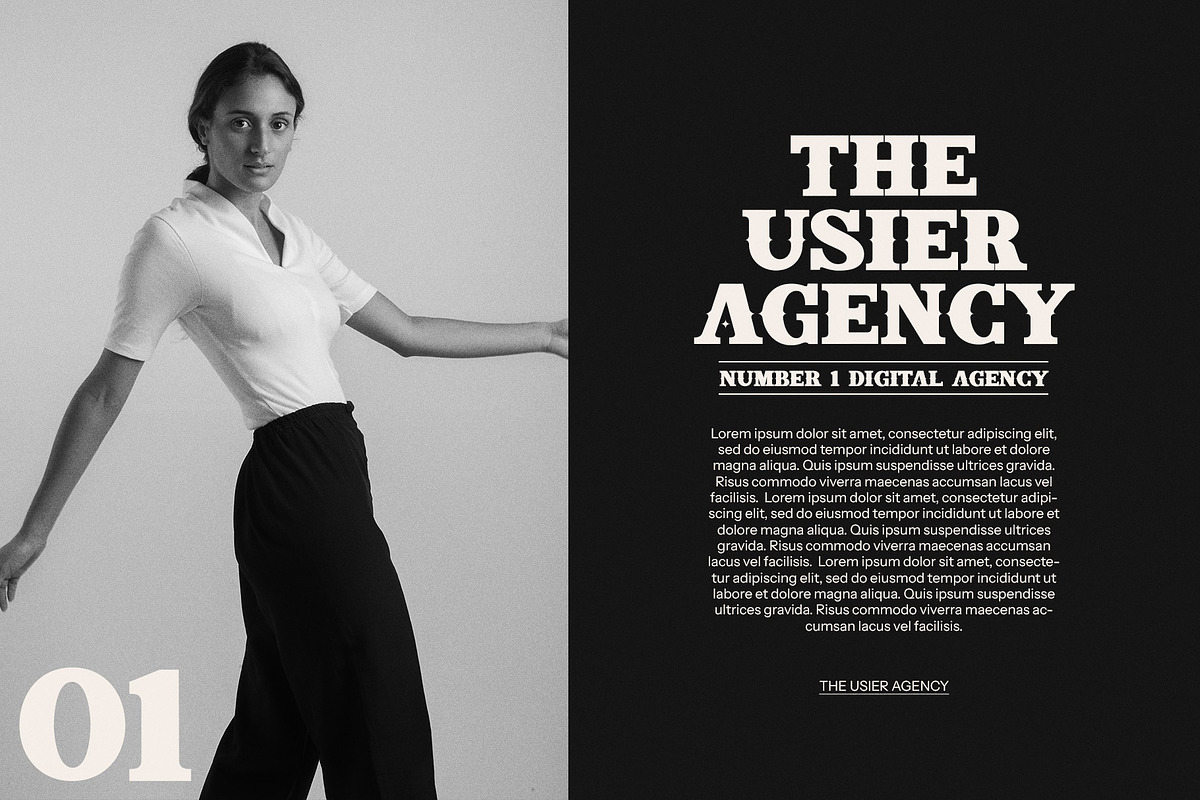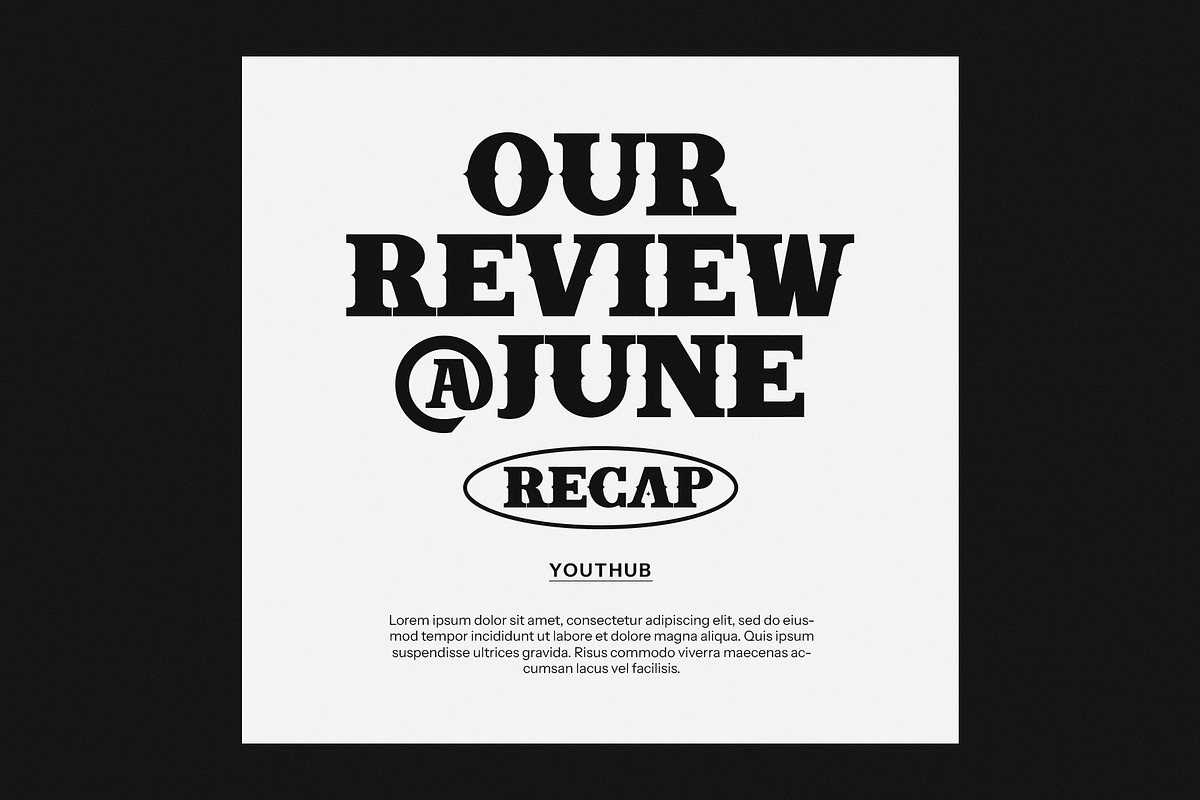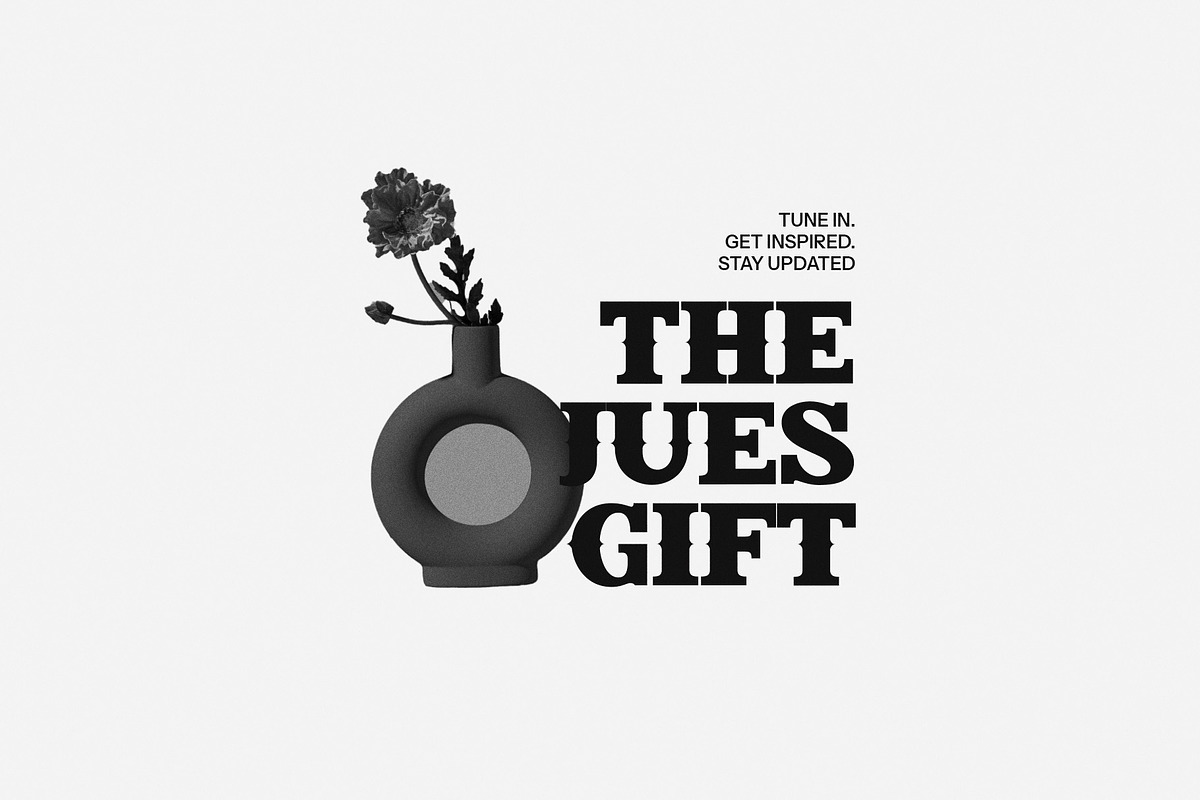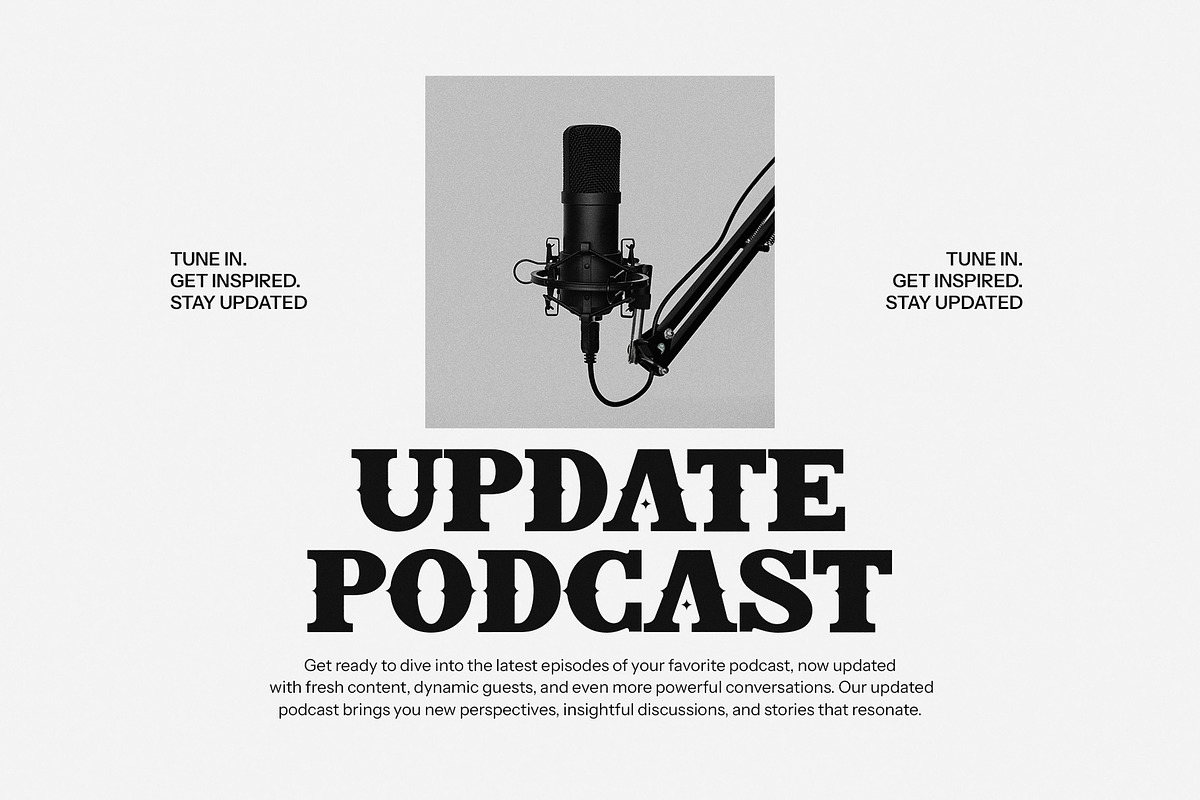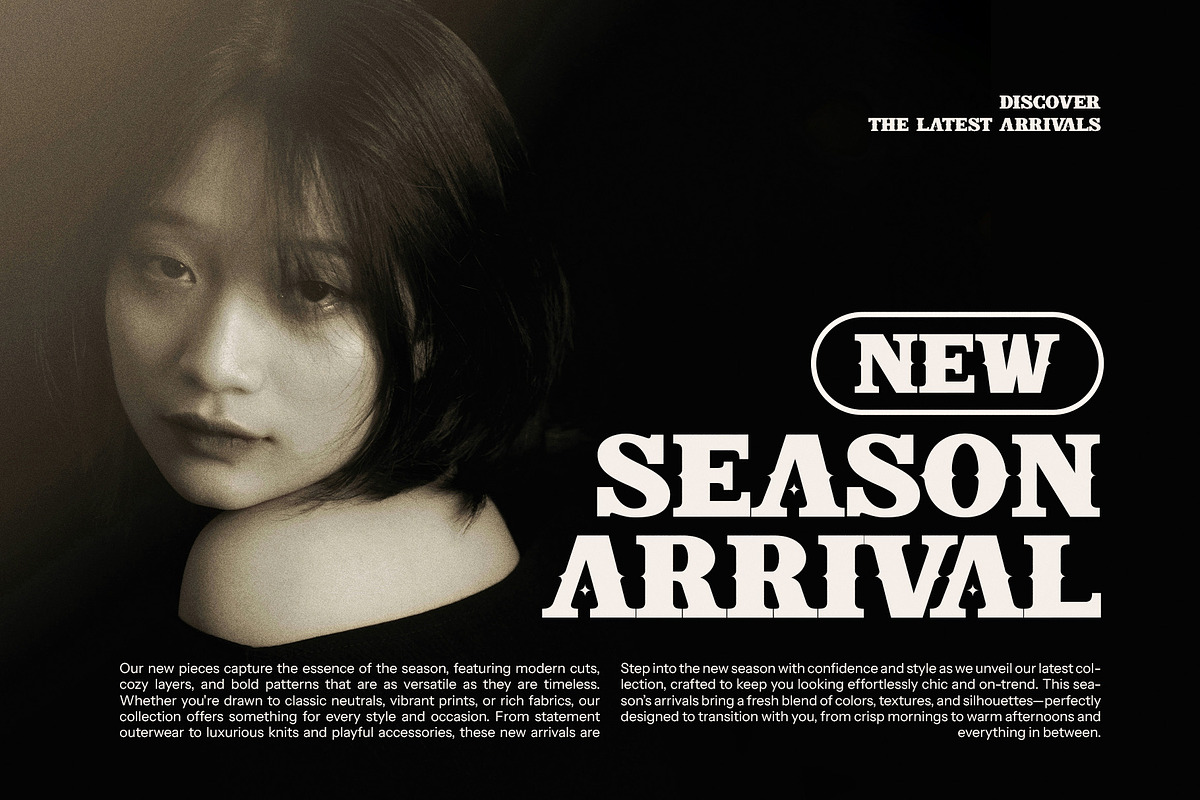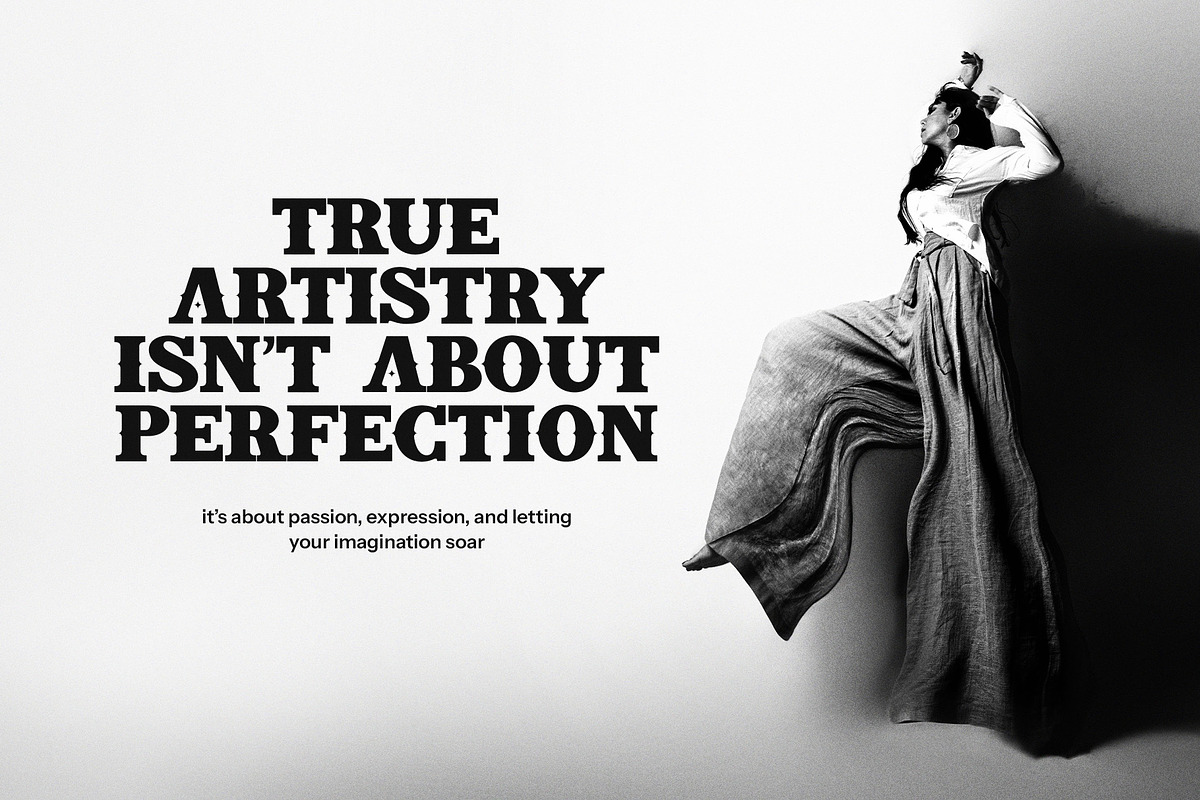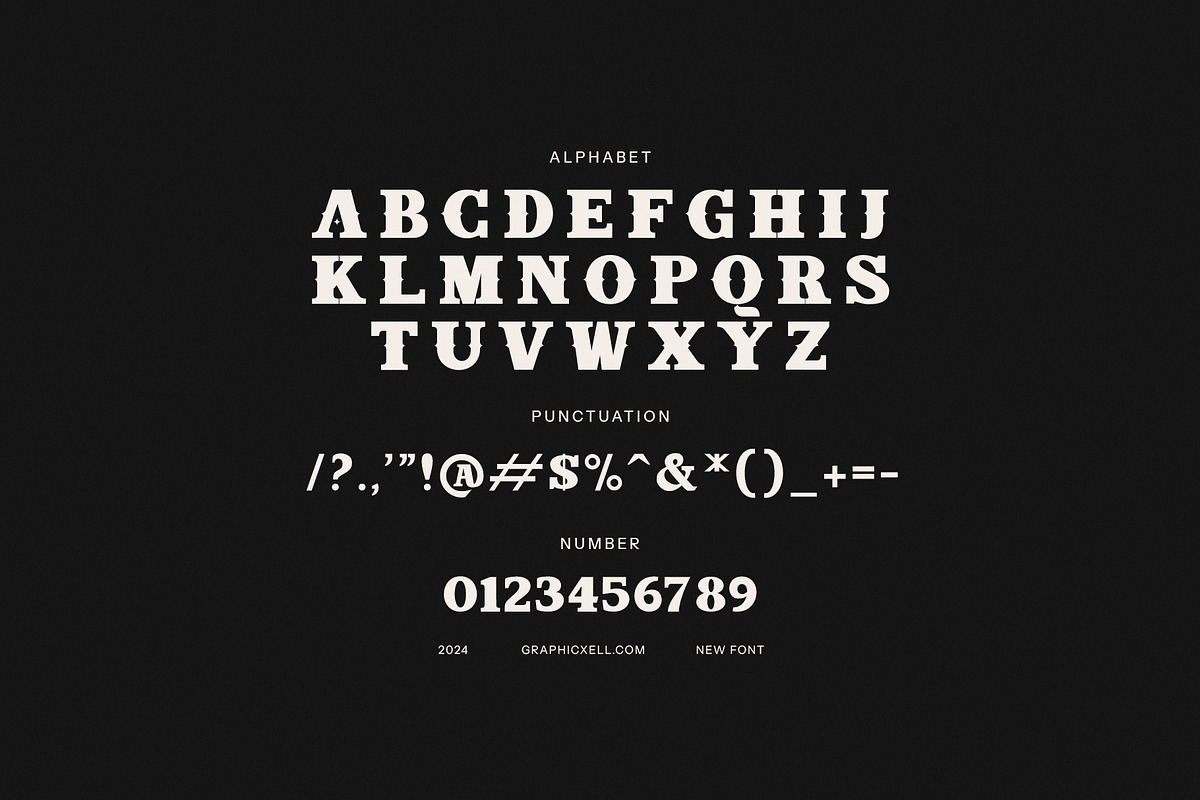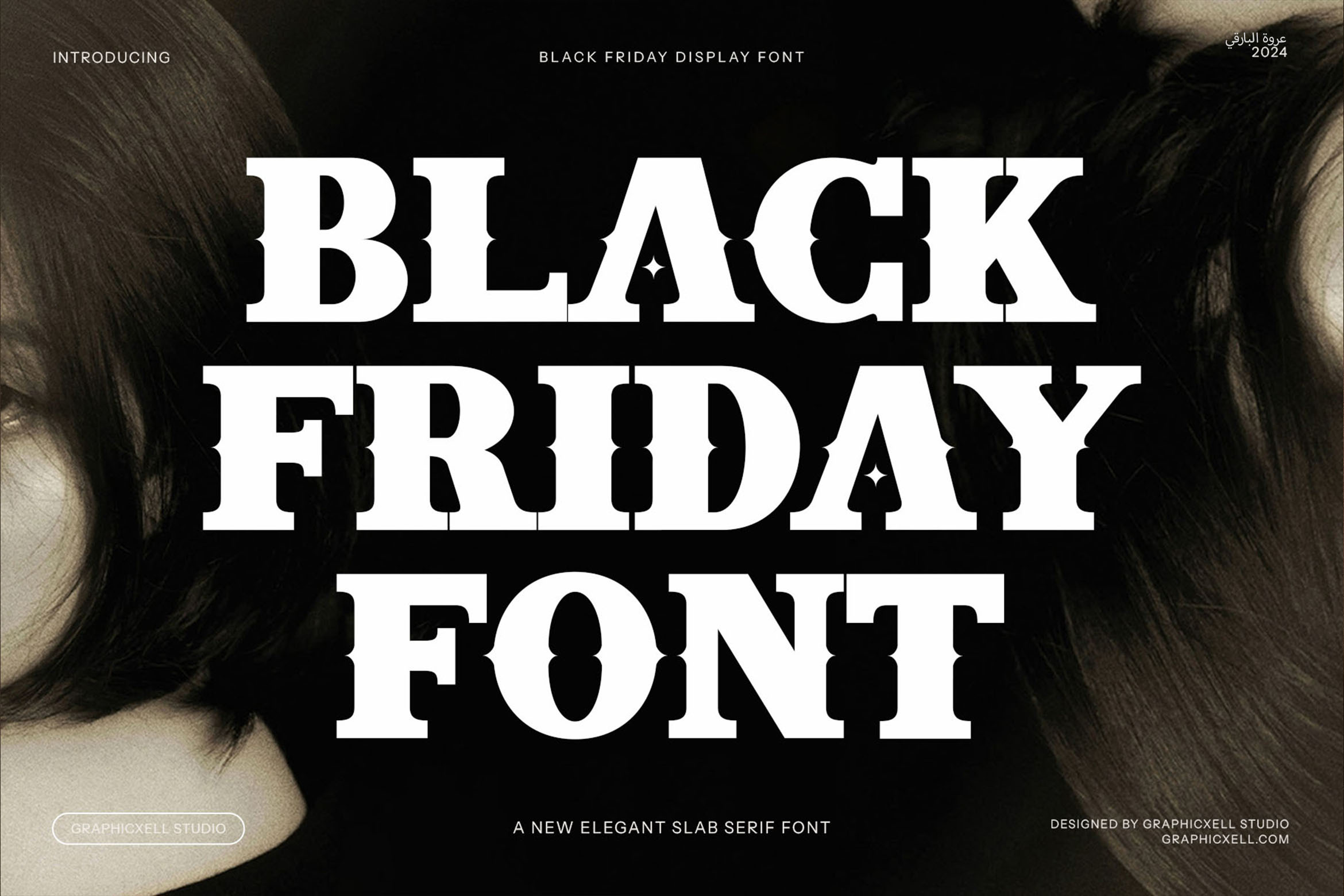
Black Friday Elegant Display Font
Black Friday Elegant Display Font is a striking slab serif typeface that effortlessly marries boldness with sophistication. With its distinctive sharp corners and intricate star-shaped details, this font commands attention while maintaining a refined, vintage charm. The boldness of the slab serifs gives it a grounded, confident presence, while the ornamental star accents introduce a touch of whimsical elegance, making it perfect for both modern and nostalgic design projects.
The Black Friday Elegant Display Font is not just a typeface—it's an invitation to stand out. Whether you're designing eye-catching Black Friday promotions, seasonal marketing materials, or sophisticated branding, this font elevates your message with its unique blend of strength and beauty. The combination of geometric sharpness and ornamental details makes it especially suited for display applications where both legibility and character are paramount, from logos to large-format prints and advertisements.
Its versatility stretches across a wide range of uses: from high-end food packaging and magazine layouts to elegant New Year’s greetings and festive promotional campaigns. The rich, vintage-inspired aesthetic of Black Friday Elegant Display enhances the visual appeal of any design, ensuring your project feels both timeless and contemporary.
Black Friday Elegant Display is the perfect balance of structure and elegance, bringing a sense of occasion to your work without overpowering it. Whether for a major sale event, luxury branding, or celebratory advertising, this font transforms ordinary text into something extraordinary, making your designs unforgettable.